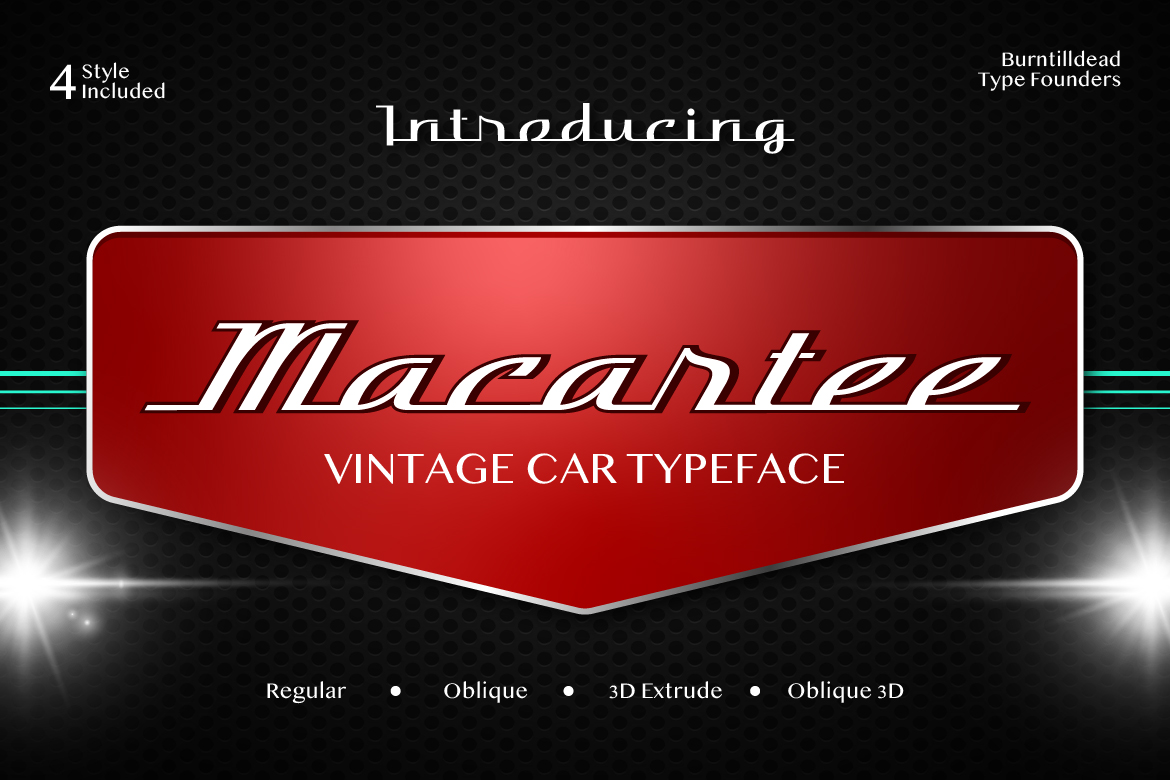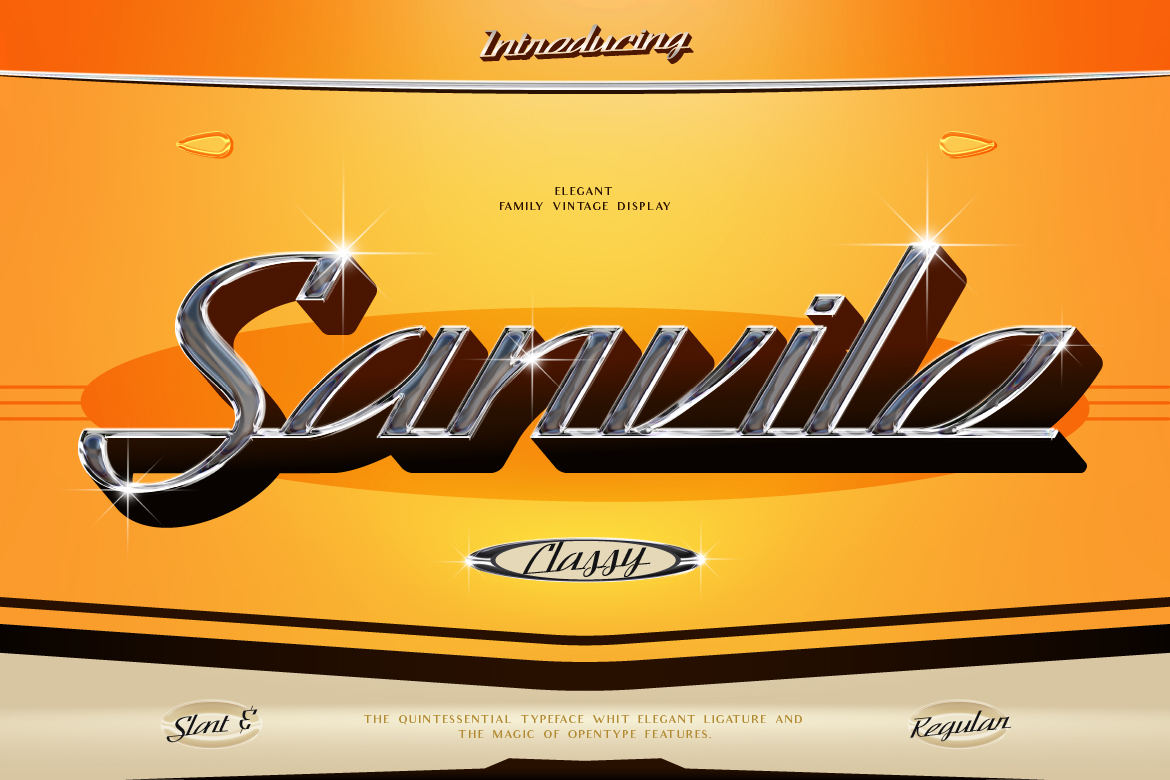
Similar but Not the Same: 3 Vintage Car Fonts with Unique Personalities
Have you ever noticed how some fonts instantly remind you of classic car emblems, chrome badges, or retro garage signs? That’s exactly the vibe you get from Macartee, Sanvilo, and Heatrous; three vintage car inspired fonts that share the same DNA but carry their own unique personality.
If you’re working on projects that need a touch of nostalgia, speed, or retro elegance, these fonts are here to bring back the golden era of automotive design. Let’s take a ride through each one.
Macartee – Bold and Sporty
Macartee is like the muscle car of the font world bold, fast, and unapologetically retro. With 4 styles included (Regular, Oblique, 3D Extrude, and Oblique 3D), it gives you plenty of flexibility to play with. Perfect for posters, racing events, garage logos, or anything that needs that chrome badge energy.
👉 Think of Macartee as the font that screams speed and power while keeping a sleek, polished look.
Macartee preview 1
Sanvilo – Classy and Elegant
Sanvilo brings a different flavor. It’s still vintage, but it feels more luxurious and glamorous like a shiny old-school European car parked on a sunny boulevard. With elegant ligatures and smooth letterforms, Sanvilo works beautifully for branding, retro signage, or even invitations that want a classy twist.
👉 If Macartee is the muscle car, Sanvilo is the classic luxury ride stylish, sophisticated, and timeless.
Sanvilo preview 1
Heatrous – Simple yet Strong
Heatrous keeps it clean. It doesn’t shout; it just stands tall with elegance and confidence. Its streamlined design feels modern but still carries that retro DNA. Whether you use it for posters, automotive branding, or editorial layouts, Heatrous strikes the balance between simplicity and vintage charm.
👉 Heatrous is the font that says: “less flash, more class.”
Heatrous preview 1
Why They’re Setipe but Not the Same
What’s cool about these three fonts is how they share the same retro-car-inspired spirit but serve different moods:
• Macartee → sporty & powerful.
• Sanvilo → classy & elegant.
• Heatrous → simple & confident.
So whether you’re designing for a garage logo, a poster, or a branding project that needs vintage character, you’ve got options that fit just right.
In design, just like in cars, it’s all about personality. Some days you want the roar of a muscle car, other days you crave the smooth ride of a classic luxury coupe. With Macartee, Sanvilo, and Heatrous, you don’t have to choose just one, you can pick the font that fits your creative journey.